45 Beautiful Script Fonts: Find Your Perfect Handwritten Font in 2026
Finding the right typography can make or break a design project, especially when you need a touch of personal charm. Whether you are working on wedding invitations, branding materials, or social media graphics in 2026, a beautiful script style adds a human element that digital designs often lack. I have spent hours combing through archives to bring you this curated list of 45 stunning script options. If you have been searching everywhere for the perfect handwritten font to give your work that authentic, hand-lettered feel, you are exactly in the right place.
1. Simple Fine Font
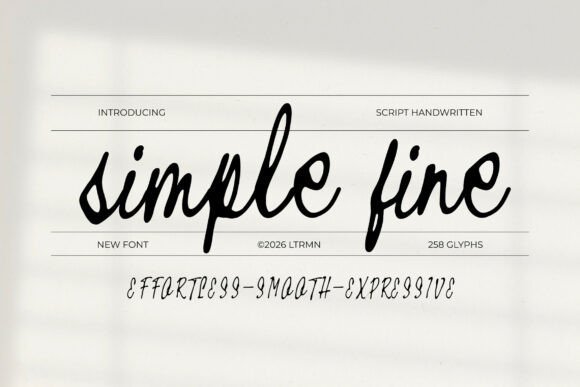
Simple Fine Font is a beautifully smooth handwritten font that captures the authentic essence of signature-style penmanship. With its elegant, flowing strokes and natural baseline, this cursive typeface adds a clean yet deeply personal touch to any creative endeavor. Whether you are aiming for a sophisticated boutique look or an approachable, modern aesthetic, the effortless movement and expressive curves of this natural script ensure your typography feels human, refined, and beautifully organic.
Beyond its visual appeal, Simple Fine is packed with powerful typographic features, including seamless ligatures, stunning alternate characters, and comprehensive multilingual support. Supplied in OTF, TTF, WOFF, and WOFF2 formats, it performs just as flawlessly in web environments as it does in high-resolution print. This makes it an exceptional handwritten font choice for high-end branding, bespoke logo design, elegant wedding invitations, and engaging social media visuals that demand an authentic, effortless vibe.
2. Handwritten Font Bundle
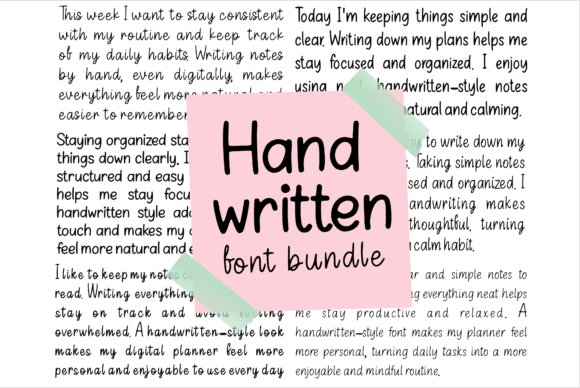
If you are looking to infuse your digital workspace with a warm, human touch, the Handwritten Font Bundle is an absolute must-have collection. Tailored specifically for digital journaling, planner creation, and mindful note-taking, this versatile toolkit perfectly mimics the cozy, authentic aesthetic of real pen on paper. Finding the perfect handwritten font can often be a challenge, but this bundle provides a highly curated selection of natural, highly legible scripts that transform clinical, rigid text into a highly personalized digital lettering experience.
Featuring everything from neat, structured print to flowing, casual cursive styles, this comprehensive typography pack covers every daily handwriting need. It is an ideal asset for crafting intimate digital planners, engaging habit trackers, or beautifully customized personal blogs. By integrating these unique handwritten font styles into your routine, you empower your digital notes and lifestyle designs with a beautifully organic, bespoke charm that feels genuinely and uniquely yours.
3. Farmhouse Font
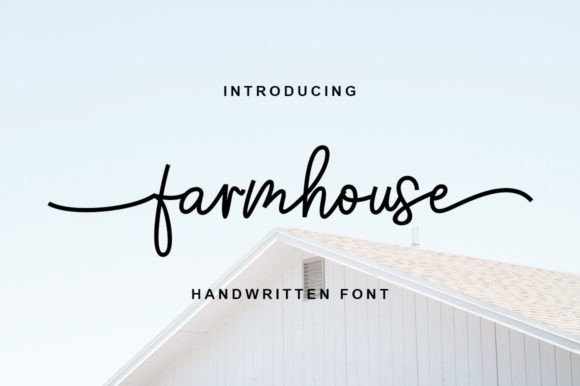
Farmhouse Font brings an authentic, rustic charm combined with a deeply romantic touch to your design toolkit. As a meticulously crafted handwritten font, it strikes a flawless balance between casual elegance and high-impact readability, making it a true standout for both prominent titles and flowing body text. Its natural letterforms simulate authentic calligraphy, allowing designers to elevate their creative concepts to new heights while maintaining a warm, accessible feel that resonates with audiences across various mediums.
Functionality meets beauty in this versatile typeface. Because it is fully PUA encoded, designers can effortlessly access a rich library of decorative glyphs and sweeping swashes without needing specialized design software. This flexibility makes Farmhouse an outstanding handwritten font for a wide array of applications, including chic magazine headlines, cohesive social media branding, breathtaking wedding invitations, and bespoke greeting cards. It delivers that coveted rustic-chic aesthetic with absolute professional precision.
4. Simple Free Font
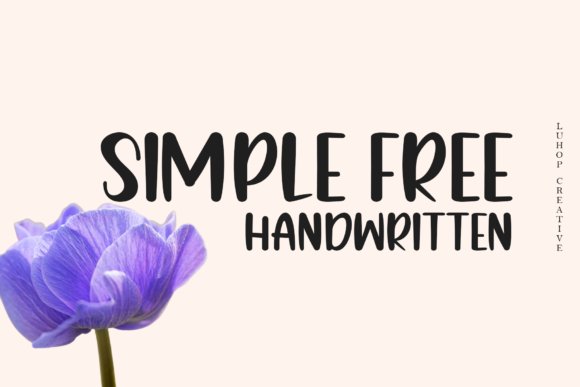
If you are searching for a truly versatile typographic element, the Simple Free Font stands out as an incredibly playful and casual handwritten font. With its fluid strokes and relaxed baseline, this hand-lettered gem captures the effortless charm of natural penmanship. It offers a gentle, organic aesthetic that instantly softens your layout, making it an ideal choice for projects that require a personal, approachable, and human touch.
Beyond its casual elegance, this script typeface brings a uniquely joyful and romantic energy to any creative endeavor. Whether you are designing intimate wedding invitations, boutique branding, or engaging social media graphics, integrating this handwritten font will effortlessly elevate your visual storytelling. Add this lovely typographic asset to your creative toolkit, and watch as it takes your everyday design projects to the next level with its warm, bespoke character.
5. January Font
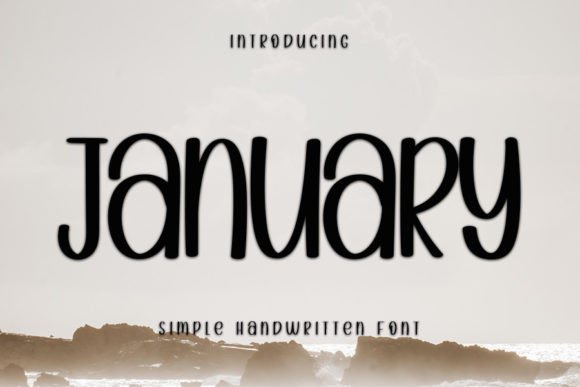
Embodying sophistication and grace, the January Font is a brilliantly neat and beautiful handwritten font defined by its distinctly elegant touch. Unlike overly expressive or erratic scripts, January maintains a crisp, legible baseline while preserving the authentic flow of genuine ink on paper. Its delicate curves and refined letterforms create a harmonious balance between classic calligraphy and modern cursive typography, making it an essential asset for designers aiming for a polished yet personal aesthetic.
What truly sets this handwritten font apart is its incredibly distinct and timeless style, which ensures your designs will remain relevant and captivating for years to come. It is absolutely perfect for high-end branding, editorial layouts, luxury packaging, and boutique logo designs. By incorporating January into your typographic hierarchy, you can effortlessly craft spectacular designs that resonate deeply with your audience and leave a lasting impression of elegant professionalism.
6. Handwritten Font Collection
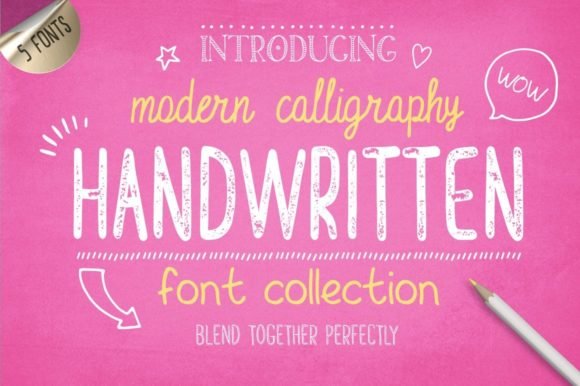
For creatives looking to build a comprehensive typographic arsenal, the Handwritten Font Collection offers an unparalleled treasure trove of design possibilities. This robust bundle features five distinct hand-drawn typefaces alongside five alternative styles, all meticulously crafted to blend together flawlessly. At its core is English Castles, a sleek and slim script that perfectly exemplifies a top-tier handwritten font, while the Windsor Great Park family adds a substantial, hand-drawn uppercase sans-serif contrast. From the whimsically cute Fish and Chips hand-lettering to the chalkboard-ready Worcestershire Sauce Press and the hollowed Cornish Pasty, this collection provides endless mix-and-match potential for any visual mood.
Beyond the impressive variety of each handwritten font, this package is engineered for ultimate creative flexibility across diverse applications like boutique branding, quirky t-shirt designs, charming greeting cards, and eye-catching posters. To sweeten the deal, the bundle includes an incredible bonus of 105 free hand-drawn elements specifically designed to complement these typefaces. Available in versatile formats, this collection is an all-in-one typographic toolkit guaranteed to bring a cohesive, artisanal touch to your next design project.
7. Sweater Font
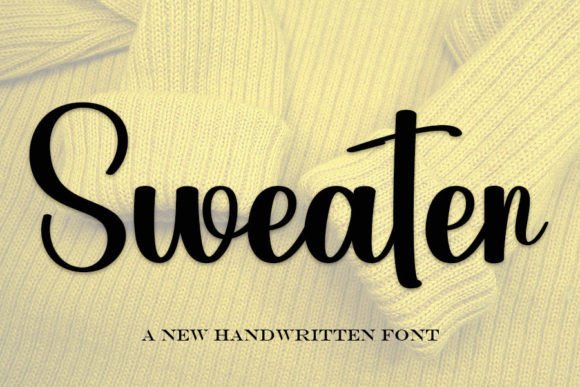
Sweater Font stands out as a remarkably neat and beautiful handwritten font, characterized by its undeniably elegant touch. When you are looking to infuse a sense of bespoke artistry into your favorite creative projects, this cursive typeface delivers a smooth, fluid baseline that mimics authentic penmanship. The precision in its letterforms elevates the standard for hand-lettered text, striking a perfect balance between sophisticated calligraphy and approachable modern design. Whether you are working on digital graphics or printed materials, its distinct characteristics ensure your typography feels both personal and highly professional.
Fall in love with the incredibly timeless style that this digital handwriting asset brings to the table. Sweater Font is exceptionally well-suited for high-end boutique branding, romantic wedding invitations, and luxury product packaging where a refined aesthetic is paramount. Because it captures the organic, flowing nature of a true handwritten font while maintaining excellent legibility, designers can confidently use it to create spectacular, eye-catching layouts. Embrace this versatile script to effortlessly elevate your next typographic endeavor into a lasting work of art.
8. Boho Font
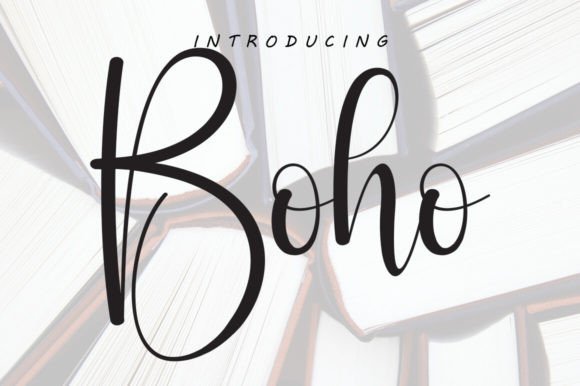
Introducing Boho Font, an enchantingly fluid handwritten font that effortlessly exudes a tender, artisanal charm. Designed to infuse a warm, romantic essence into your visual concepts, this typeface provides an expressively joyful touch to all your creative endeavors. Its flowing strokes and organic ligatures capture the true essence of human penmanship, making it a stellar choice for projects requiring an authentic, hand-lettered look. By bridging the gap between elegant script and relaxed, casual writing, Boho offers designers a highly adaptable tool for evoking genuine emotion through typography.
With its delightful cursive style, this handwritten font brings a beautiful versatility that dramatically enhances the allure of any layout. It shines exceptionally bright in bohemian-themed branding, lifestyle blog headers, greeting cards, and captivating social media quote graphics. Elevate your aesthetic to a new level of sophistication by incorporating these graceful characters into your mood boards and packaging designs. Celebrate the raw beauty of handwritten expression with the irresistible charm of Boho Font, and watch your creative visions come to life with a deeply personal resonance.
9. Sparkle Shine Font
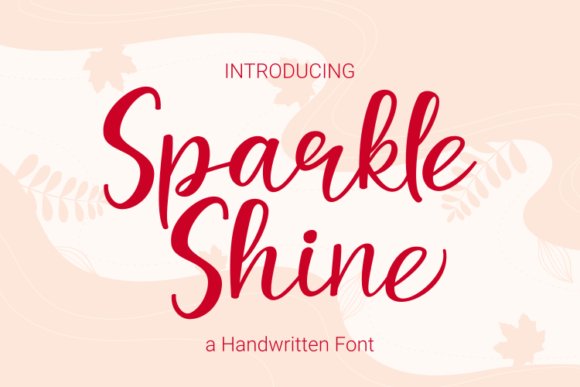
Sparkle Shine Font is a delightfully cute and simple handwritten font, specifically crafted to bring a playful energy to your typographic layouts. Renowned for its incredibly authentic look, this casual script adds a deeply personal and realistic feel to your creative designs, mimicking the joyful strokes of a marker or piece of chalk. It is an absolute powerhouse for educators and creators alike, serving as the perfect hand-drawn typography for whimsical chalkboard quotes, engaging teaching materials, and vibrant classroom posters. The organic, slightly bouncy baseline ensures that every word feels warm, approachable, and uniquely human.
Beyond its aesthetic appeal, this handwritten font is fully PUA encoded, meaning designers of all skill levels can access its full library of custom glyphs and decorative swashes with total ease. Add this lovely typographic gem to your creative toolkit and watch it breathe life into children’s book illustrations, quirky apparel designs, and playful DIY craft projects. By leveraging the expressive nature of digital handwriting, Sparkle Shine Font empowers you to take your graphic designs to the next level, ensuring your messaging resonates with a fun, handmade authenticity.
10. Child Font
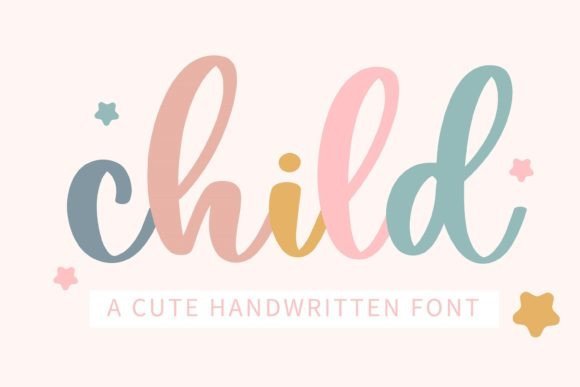
The Child Font is an exceptionally sweet and cute handwritten font that effortlessly captures the innocence and charm of authentic hand-drawn lettering. Its organic strokes and playful curves make it a highly sought-after typographic asset for designers looking to infuse their digital handwriting projects with genuine warmth. Unlike rigid digital typefaces, this cursive script maintains a fluid, natural rhythm that instantly makes any composition feel more personal and approachable, ensuring your audience connects deeply with your core message.
When it comes to practical application, the versatility of this charming script lettering truly shines. It is the perfect choice for crafting gorgeous wedding invitations, beautiful stationary art, and eye-catching social media posts that demand a bespoke, crafted aesthetic. Whether you are designing modern boutique branding, whimsical greeting cards, or engaging lifestyle blogs, incorporating this delightful handwritten font will effortlessly elevate your visual identity, lending a customized, artisanal touch to every project you create.
11. Sister Font
For designers seeking a delicate balance between elegance and approachability, the Sister Font emerges as a distinctly sweet and cursive handwritten font. This gentle typeface radiates a joyful and romantic energy, mimicking the fluid, sweeping motions of traditional calligraphy while retaining a relaxed, modern vibe. Its smooth, continuous strokes provide a refined yet unpretentious typographic foundation, making it a standout choice among digital handwriting options for those who want to convey authentic emotion and sophisticated charm in their visual communications.
The true strength of this elegant script lies in its remarkable adaptability across various creative mediums. It is perfectly fit for high-end branding, bespoke logo creation, and dreamy wedding suites, yet it feels equally at home in casual fashion lookbooks and dynamic marketing promotions. By integrating this versatile handwritten font into your creative workflow, you guarantee a finished product that looks both fancy and elegantly casual—an ideal combination for lifestyle brands, greeting card designers, and boutique businesses aiming to leave a memorable, personalized impression.
12. Candies Honeymoon Font
Candies Honeymoon Font stands out as a brilliantly executed handwritten font duo, meticulously crafted to capture the absolute magic of sweetness and typographic charm. By intelligently pairing a bold, candy-inspired display typeface with an elegantly flowing cursive script, this dual package offers a dynamic visual contrast that immediately catches the eye. The synergy between the two styles brings an abundance of warmth, joy, and unique personality to the digital canvas, proving that hand-drawn typography can be both incredibly playful and structurally sophisticated all at once.
This masterfully designed handwriting style is an ideal asset for premium branding, stylish event invitations, and beautifully curated social media aesthetics. It also shines exceptionally well in boutique packaging design, where the organic feel of a premium handwritten font helps products stand out on the shelf with a bespoke, artisanal flair. For graphic designers and art directors who want their creative work to feel deeply charming yet highly distinctive, Candies Honeymoon provides the ultimate toolkit to blend playful sophistication with undeniable modern appeal.
13. Biscuit Font
Biscuit is an exceptionally sweet and cursive handwritten font that effortlessly captures the warmth of personal, hand-crafted design. This gentle script typeface brings a beautifully authentic feel to your digital canvas, seamlessly blending modern elegance with an approachable, casual charm. If you are searching for a handwriting font that feels both joyful and inherently romantic, Biscuit offers graceful ligatures and fluid strokes that instantly elevate any creative project with its bespoke hand-lettering vibe.
As a highly versatile handwritten font, Biscuit shines across a multitude of design applications. It is perfectly suited for crafting bespoke branding materials, elegant wedding invitations, and heartfelt greeting cards. Beyond stationary, this charming cursive style works wonders for fashion lookbooks, boutique logo designs, and captivating marketing promotions. Whenever you need your typography to balance fancy sophistication with a relaxed, everyday aesthetic, this hand-drawn script guarantees a gorgeous, memorable finish.
14. Sunshine & Lemons Font
Bring a refreshing burst of creative energy to your digital workspace with the Sunshine & Lemons Font, a delightfully cute farmhouse handwritten font designed to make your projects pop. Specially crafted to emulate organic hand-lettering, this cursive font bridges the gap between rustic charm and modern digital versatility. Whether you are a dedicated Cricut enthusiast or a digital planner aficionado, this handwriting font injects a playful yet refined aesthetic into your typography toolkit, ensuring every word feels personally penned and warmly expressive.
Beyond its undeniable visual appeal, this handwritten font is engineered for ultimate compatibility and ease of use. It performs flawlessly across popular design platforms, integrating seamlessly with Cricut SVGs, Goodnotes, and Procreate. Transform ordinary text into stunning works of art by incorporating this versatile script into bespoke greeting cards, personalized craft projects, and vibrant event invitations. For anyone seeking a captivating script typeface that radiates joy and artisanal flair, Sunshine & Lemons stands out as an essential typographic choice.
15. Stay Wonderful Font
Elegance meets simplicity in the Stay Wonderful Font, a stunningly thin and beautiful handwritten font that brings a delicate, refined touch to your typography collection. Defined by its distinct, well-rounded letters and graceful, airy strokes, this handwriting font acts as a true typographic masterpiece. It captures the essence of sophisticated hand-lettering, offering a clean, minimalist cursive style that instantly draws the eye without overwhelming the surrounding design elements.
The incredibly versatile style of this handwritten font allows it to adapt beautifully to a wide array of high-end design contexts. It is an ideal script typeface for minimalist logo creation, delicate editorial layouts, boutique packaging, and elegant social media graphics. By integrating this fluid handwriting font into your workflow, you can effortlessly create spectacular, professional-grade designs that maintain a warm, personalized, and authentically human connection.
16. Penny Scribbles Font
If you are looking to infuse your next project with a whimsical, authentic charm, the Penny Scribbles Font is an exceptional handwritten font family to add to your typographic toolkit. Characterized by playful, slightly messy strokes that mimic the effortless spontaneity of a child’s handwriting, this hand-lettered typeface still manages to retain a crisp, modern edge. It captures the essence of a natural stroke, making it an ideal choice for designers who want to step away from rigid corporate typography and embrace a more approachable, organic aesthetic.
Beyond its delightful letterforms, this casual script typeface is incredibly versatile for real-world applications. It is absolutely perfect for breathing life into projects with a childlike vibe, whether you are designing artisanal food menus, crafting custom recipe cards, or illustrating children’s books. As an added bonus, this download includes 50 unique, doodle-style illustrations in both SVG and PNG formats. These complementary graphics seamlessly pair with the handwritten font, allowing you to build highly engaging, cohesive branding without ever having to leave your canvas.
17. Neat & Clean Handwritten Font Bundle V.1
The Neat & Clean Handwritten Font Bundle V.1 is a powerhouse collection for designers and digital creators who crave that perfectly tidy, hand-lettered aesthetic. This comprehensive typographic toolkit features 10 distinctly unique and playful handwritten fonts, each meticulously designed to bring a polished yet approachable charm to your digital workspace. Whether you are formatting elegant digital planners in GoodNotes, crafting engaging social media graphics in Canva, or sketching out fresh typographic concepts in Procreate, these cursive typefaces offer the authentic feel of a pen-to-paper natural stroke without the inconsistency of actual handwriting.
This beautifully curated bundle truly shines when applied to educational and lifestyle projects. Its highly legible characters make it an absolute must-have for back-to-school materials, digital journaling, and aesthetically pleasing note-taking. Furthermore, the seamless blend of neat, clean, and mildly whimsical script designs ensures these typefaces transition effortlessly into professional branding, logo creation, and kid-centric product packaging. Elevate your creative arsenal with this highly versatile handwritten font collection that delivers limitless typographic possibilities for both personal hobbies and high-end client work.
18. Special Free Font
Injecting a dose of personality into your designs is effortless with the Special Free Font, a wonderfully quirky and undeniably fun handwritten font. Boasting peculiarly attractive characters that dance playfully along the baseline, this typeface captures the beautiful imperfections of a genuine natural stroke. It stands out in the crowded world of digital typography by offering an organic, hand-lettered aesthetic that immediately draws the viewer’s eye. The authentic, fluid curves ensure that any text it formats feels highly personal and distinctively human.
Because of its highly stylized yet incredibly legible nature, this versatile cursive script is a fantastic asset for a wide variety of creative endeavors. It serves as an excellent foundational typeface for eye-catching social media quote graphics, bespoke event invitations, and casual boutique branding. When you need a handwritten font that effortlessly elevates the visual appeal of a poster or merchandise design, Special Free delivers that bespoke, artisanal touch that transforms a simple layout into a beautiful, memorable creation.
19. Ladybug Font
Ladybug is a remarkably sweet and cursive handwritten font that effortlessly captures the charm of natural handwriting. Its gentle, sweeping strokes are guaranteed to look absolutely gorgeous across a wide variety of design ideas, bringing a joyful and inherently romantic touch to each of your creative projects. Whether you are aiming for a classic calligraphy style or something a bit more playful, this hand-lettered typeface provides an organic warmth that standard digital lettering often lacks.
Perfectly tailored for modern branding, bespoke logos, and elegant wedding stationery, the Ladybug font is a versatile asset in any designer’s toolkit. It shines brilliantly when used for heartfelt greeting cards, high-end fashion lookbooks, and engaging marketing promotions. Whenever you need your design to exude a fancy and sophisticated vibe while still maintaining a relatable, casual aesthetic, this authentic handwritten font delivers unparalleled elegance.
20. Joynoted Font
Created by the talented team at Allouse Studio, Joynoted is a premium handwritten font designed to instantly elevate your product branding with its elegant and notably modern lines. This typeface was meticulously crafted specifically for designers who need to inject a beautiful, refreshing look into their creative workflows. By blending the fluid motion of a cursive script with contemporary design sensibilities, Joynoted offers a highly legible yet entirely organic lettering style that naturally draws the eye.
Integrating this authentic handwritten font into your digital or print projects guarantees a sophisticated finish that feels deeply personal and bespoke. It is an exceptional choice for boutique product packaging, captivating social media graphics, and minimalist logo designs where a natural handwriting aesthetic is desired. If you are searching for a hand-lettered typeface that balances crisp modernism with human warmth, Joynoted is an indispensable typographic tool.
21. Welcome Font
Welcome is a beautifully sweet and distinctly cursive handwritten font designed to infuse your creative endeavors with an undeniable sense of warmth and intimacy. Characterized by its gentle curves and authentic strokes, this inviting typeface looks stunning across an impressive spectrum of design contexts. It is masterfully engineered to add a joyful and romantic flair to your artwork, perfectly mimicking the fluid grace of natural human penmanship without sacrificing professional legibility.
This versatile hand-lettered typeface is an ideal fit for crafting memorable branding elements, boutique logos, and enchanting wedding invitation suites. Furthermore, the Welcome font excels in editorial applications such as fashion lookbooks, custom greeting cards, and dynamic marketing promotions. Anytime your project calls for a typographic style that is effortlessly fancy and elegant, yet retains a welcoming, casual charm, this exceptional handwritten font is sure to exceed your expectations.
22. Handwriting Font
The Handwriting Font is a delightfully sweet and cursive handwritten font that instantly elevates any creative project with its authentic penmanship. Designed to mimic the natural flow of human handwriting, this gentle typeface brings a distinctively joyful and romantic touch to your digital canvas. Whether you are working on a minimalist aesthetic or a highly decorative layout, its organic strokes and fluid letterforms provide that coveted hand-lettered style, ensuring your text feels personal, inviting, and effortlessly chic.
Beyond its undeniable charm, this versatile typeface is perfectly suited for a wide array of professional and personal applications. It is an exceptional choice for boutique branding, bespoke logo design, and elegant wedding stationery. Furthermore, it shines brilliantly in fashion lookbooks, greeting cards, and seasonal marketing promotions. Anytime your design requires a balance between fancy sophistication and a laid-back, casual vibe, this handwritten font delivers a beautifully crafted solution that resonates deeply with your audience.
23. History Font
History Font emerges as a stunningly sweet and cursive handwritten font, meticulously designed to infuse your creative endeavors with a sense of timeless romance and gentle fluidity. This captivating typeface captures the essence of personalized typography, utilizing graceful loops and natural baseline variations to create an incredibly authentic hand-lettered aesthetic. The true beauty of this flowing script lies in its ability to transform standard text into a piece of digital calligraphy, making every word look as though it was thoughtfully crafted by a skilled artisan’s pen.
Functionality seamlessly meets sheer elegance with this versatile handwritten font, making it an absolute staple for modern design professionals. It is flawlessly tailored for high-end boutique branding, elegant logo marks, and enchanting wedding invitations. Additionally, its joyful yet sophisticated character translates beautifully across fashion lookbooks, personalized greeting cards, and engaging social media marketing promotions. Whenever your project calls for a delicate balance between fancy, upscale typography and an approachable, casual warmth, the History Font stands ready to deliver exceptional visual results.
24. Have a Nice Day Honey Font
The Have a Nice Day Honey Font is an impeccably crafted handwritten font duo that brings a breath of fresh air to modern typographic pairing. This charming combination masterfully pairs a tall, bold, and playful display typeface with a delicate, narrow handwritten companion. The primary Honey font commands attention with its quirky proportions, softly rounded edges, and a deeply organic, hand-drawn feel that radiates cheerful modernity. In beautiful contrast, the secondary typeface adds a light, airy touch of authentic penmanship, creating a dynamic visual interplay that is both warm and incredibly friendly.
What sets this handwritten font duo apart is its remarkable ability to strike a perfect harmony between bold personality and subtle, handcrafted elegance. It serves as the ultimate typographic toolkit for designers looking to infuse their work with an approachable, artisan touch. Whether you are developing cohesive boutique branding, designing eye-catching posters, or crafting engaging social media graphics and greeting cards, this pairing is exceptionally versatile. Any design that aims to feel welcoming, distinctly upbeat, and rich with human connection will benefit immensely from this delightful typeface combination.
25. Amor Note Font
Amor Note Font is a cool, friendly, and informal handwritten font that brings a deeply personal and realistic touch to any creative project. Emulating the effortless flow of casual handwriting, this script typeface is beautifully suited for crafting charming chalkboard quotes, engaging educational materials, and playful classroom displays. Its authentic, hand-drawn look instantly breaks down the barrier between designer and audience, radiating a warmth that feels genuinely human rather than digitally produced.
Beyond its endearing aesthetic, this hand-lettered gem is incredibly user-friendly for both professional designers and hobbyists alike. Amor Note is fully PUA encoded, ensuring that you can seamlessly access its expansive library of custom glyphs and graceful ligatures across various design platforms. Whether you are personalizing greeting cards, designing rustic wedding invitations, or conceptualizing a bespoke branding package, this versatile cursive font provides the perfect blend of legibility and artisan charm.
26. Ayshana Script Font
Ayshana Script Font stands out as a remarkably lovely and timeless handwritten font, perfectly capturing the delicate elegance of traditional calligraphy. With its fluid, sweeping curves and sophisticated letterforms, this signature-style typeface is the ultimate choice for conceptualizing eye-catching logos, high-end branding materials, and romantic quote graphics. The natural rhythm of its cursive typography creates a bespoke, artisan feel, making it an indispensable asset for designers looking to inject a touch of luxury and refinement into their visual storytelling.
On the technical side, Ayshana Script provides absolute creative freedom thanks to its full PUA encoding. This ensures that every stunning alternate glyph, flourishing swash, and decorative ligature is readily accessible, even for those using standard word processors or craft software. Adding this expressive hand-lettered font to your typographic arsenal will effortlessly elevate your next set of wedding invitations, boutique packaging, or social media campaigns, allowing you to craft truly memorable, custom-looking designs.
27. Scribblemood Regular Font
Scribblemood Regular Font is an exceptionally quirky handwritten font that draws its inspiration from playful doodles, spontaneous journaling, and wonderfully messy pen sketches. Boasting an impressive collection of 486 glyphs, this hand-drawn lettering masterpiece is meticulously designed to inject life, humor, and a warm, organic script flow into your projects. What sets it apart is its incredibly smart contextual alternates, which automatically style the last letter of each word to flawlessly mimic the imperfect, authentic rhythm of real human handwriting. Combined with its stylistic ligatures, it creates a delightfully funky and unpredictable typography experience.
Beyond its primary letterforms, this dynamic cursive font is packed with creative extras, including childlike food icons, romantic elements, banners, and even decorative Roman numerals. Fully PUA encoded, every single feature is easily accessible across any design software, from Canva to Cricut Design Space. It is the perfect typographic companion for a wide variety of creative endeavors, including playful wedding signage, DIY craft projects, engaging children’s book illustrations, and boutique packaging. If you are a typography lover who favors an energetic, imperfect aesthetic over rigid perfection, Scribblemood will quickly become your go-to creative tool.
28. Youth Richfield Font
Youth Richfield by Allouse Studio is a masterclass in combining clean legibility with authentic brush typography. As a meticulously crafted handwritten font, it strikes the perfect balance between organic fluidity and polished design. The subtle brush textures give each letterform a dynamic energy, making it feel as though the text was just painted onto the canvas. Whether you are aiming for a modern aesthetic or a timeless artisanal vibe, this hand-drawn script provides an unparalleled level of warmth and character to your typography arsenal.
When it comes to practical application, this versatile typeface truly shines in projects that require a personalized, intimate touch. It looks absolutely stunning on wedding invitations, bespoke thank you cards, and boutique branding materials. Graphic designers frequently leverage this handwritten font for eye-catching quotes, custom logo designs, and memorable business cards. If you want to elevate your marketing collateral with authentic, expressive lettering that connects with audiences on a human level, Youth Richfield is an indispensable addition to your toolkit.
29. Background Signature Font
Background Signature is an exceptionally beautiful handwritten font that captures the spontaneous, flowing style of authentic penmanship. Evoking the charm of elegant cursive writing, this typeface flows effortlessly across the page with sweeping ascenders and delicate descenders. The natural rhythm of the letterforms creates a sense of movement and grace, making it an ideal choice for creatives seeking a signature script that feels both sophisticated and genuinely personal. The organic stroke variations mimic real ink on paper, delivering a high-end, custom typography feel.
Perfectly suited for a wide array of digital and print mediums, this flowing handwritten font adds an immediate touch of stylish intimacy to any project. It is highly recommended for upscale event invitations, luxury brand logos, and engaging social media posts that demand a relatable yet refined aesthetic. By integrating this cursive script into your design workflow, you can effortlessly transform standard text into a captivating visual statement that resonates with elegance, exclusivity, and undeniable charm.
30. Writing Font
Aptly named, the Writing Font is a sweet and delicate handwritten font that brings a gentle, romantic charm to any creative endeavor. This lovely cursive typeface stands out with its smooth, unbroken lines and joyful curves, offering a welcoming and approachable vibe. The thoughtful design ensures that while the letters maintain a casual, free-flowing aesthetic, they remain highly legible and beautifully structured. It is an exemplary choice for designers looking to infuse their work with a tender, hand-crafted typographic style that speaks directly to the heart.
The versatility of this elegant handwritten font makes it an absolute favorite for a multitude of high-end design ideas. It is perfectly fit for boutique branding, bespoke logo creation, and romantic wedding stationery, including save-the-dates and menus. Furthermore, fashion lookbooks, marketing promotions, and personalized greeting cards instantly benefit from its fancy yet relaxed demeanor. Whenever your project calls for a touch of whimsy combined with effortless sophistication, this cursive script delivers a flawless, memorable finish.
31. Ashley Southine Font
Ashley Southine is an exquisitely crafted handwritten font that effortlessly imparts an elegant, highly personal touch to your typography. Drawing deep inspiration from authentic handcrafted strokes, this beautiful script presents a natural, organic flow that is simultaneously warm and inviting. Every single character has been thoughtfully designed to showcase the unique charm found in real penmanship, creating a relaxed yet highly refined atmosphere on the page. Whether you are aiming for a chic signature aesthetic or a delicate cursive look, this handwritten font bridges the gap between digital perfection and human warmth.
When it comes to real-world applications, Ashley Southine shines in projects that require a sophisticated and personal connection. It is absolutely ideal for designing romantic wedding invitations, bespoke greeting cards, and artisan brand logos that need to communicate authenticity. By integrating this handcrafted lettering into your workflow, you instantly elevate your visuals with a bespoke charm. For designers seeking to infuse their creative assets with a genuinely human touch, this elegant handwriting typeface stands out as an indispensable addition to your typographic toolkit.
32. Farmhouse Pumpkin Font
Farmhouse Pumpkin is a delightfully cute and visually engaging handwritten font duo that perfectly pairs a playful sans-serif with a sweeping, expressive script. Bursting with casual charm and a genuinely fun personality, this dynamic typography pairing captures the nostalgic, rustic essence of hand-lettered designs. Because it provides both a structured sans and a free-flowing cursive, designers have the ultimate flexibility to create balanced, eye-catching layouts without the hassle of searching for complementary typefaces. This versatile handwritten font brings an instant sense of warmth and approachability to any creative canvas.
This lovely hand-drawn collection is specifically tailored for seasonal projects, making it a dream for cozy autumn designs, harvest festival flyers, and boutique product packaging. Imagine using the flowing script for a catchy headline while relying on the clean sans-serif for readable supporting text on custom apparel or rustic farmhouse home decor. Whether you are creating social media graphics or seasonal greeting cards, this charming handwritten font duo ensures your messaging feels personal, organic, and beautifully cohesive.
33. Cerrybelle Font
Cerrybelle is a beautifully sweet and refreshingly simple handwritten font that brings a sense of effortless grace to your digital workspace. Defined by its natural baseline and uniquely organic curves, this versatile typeface mimics the authentic rhythm of fluid handwriting. Unlike overly ornate calligraphy, Cerrybelle strikes the perfect balance between legibility and decorative flair, making it an incredibly reliable choice for a massive pool of design styles. The inherent charm of this handwritten font lies in its ability to look completely unforced, offering an authentic, hand-drawn aesthetic that resonates with modern audiences.
Because of its approachable and adaptable nature, the only true limit to Cerrybelle is your own imagination. It performs wonderfully across a diverse array of mediums, from uplifting social media quotes and whimsical blog headers to charming boutique logos and personalized stationery. Its delicate, hand-lettered vibe pairs seamlessly with watercolor graphics and minimalist layouts alike. If you want to convey sincerity and a warm, artisanal feel in your next creative endeavor, integrating this lovely handwritten font is a surefire way to make your design truly unforgettable.
34. Something Font
Something Font is a delightfully cute and beautifully relaxed handwritten font that instantly breathes a sense of casual authenticity into your digital canvas. If you have been searching for a versatile script typeface that mirrors the effortless charm of pen-and-paper writing, this design hits all the right notes. Its organic baseline and smooth, unpretentious letterforms make it a standout choice for designers who want their typography to feel welcoming, warm, and distinctly human.
Whether you are designing heartfelt letters, personalized greeting cards, or informal event invitations, this casual hand-lettered typeface adapts flawlessly to your creative vision. It acts as the perfect typographic companion for lifestyle blogs, social media quotes, and boutique branding. Confidently incorporate this beautiful handwritten font into your fresh creations, and you will undoubtedly love the organic, relaxed results it delivers.
35. Modern Hand Flow Font
Modern Hand Flow Font is a remarkably smooth and contemporary handwritten font carefully crafted to capture the natural rhythm of relaxed, everyday penmanship. Unlike overly decorative script typefaces that can sacrifice legibility, this beautiful hand-lettered design maintains a clean, balanced, and modern appearance. Its medium-weight strokes and gently flowing curves create a profound sense of authenticity, giving your designs a highly personal and approachable feel while remaining exceptionally readable for both eye-catching headlines and short text blocks.
This versatile calligraphy style is the ultimate tool for branding projects, elegant logo design, and engaging social media graphics where a distinct human touch is required. From stylish product packaging to bespoke wedding invitations and digital quote cards, the natural letter connections form consistent spacing that elevates any layout. By integrating this modern handwritten font into your workflow, you ensure that your message always feels warm, expressive, and professionally engaging.
36. Milkshake Font
Milkshake Font emerges as a wonderfully tall and playful handwritten font infused with a casual, heartfelt energy that immediately captures the viewer’s attention. Characterized by its slim, elongated letterforms, this unique script typeface effortlessly delivers a distinct sense of warmth, personality, and whimsical charm. It brilliantly bridges the gap between a clean, modern hand-lettered style and a joyful, hand-drawn aesthetic, ensuring that your typography feels both accessible and emotionally resonant.
Ideal for personal and emotion-driven creative projects, this captivating handwriting font shines in a multitude of design environments. It is the perfect typographic choice for crafting memorable Father’s Day designs, bespoke greeting cards, custom apparel, and eye-catching poster layouts. Whenever your project calls for a touch of genuine human connection and a charismatic vibe, this beautiful handwritten font stands ready to transform your canvas with its playful spirit and effortless readability.
37. Harlysta Font
Harlysta is a cute and friendly handwritten font that effortlessly captures the authentic warmth of manual penmanship. Unlike more rigid typefaces, its casual charm makes it appear wonderfully down-to-earth and incredibly approachable, giving your digital lettering a truly personalized feel. The fluid strokes and balanced spacing ensure high readability, making it an essential addition to any designer’s toolkit who specializes in hand-drawn typography.
Because of its highly versatile nature, this script font is perfect for a multitude of creative applications. Whether you are designing inviting social media graphics, charming product packaging, or casual lifestyle blogs, Harlysta seamlessly adapts to your needs. Its authentic handwritten font aesthetic easily elevates everyday projects, bringing a welcoming and organic touch to logos, quotes, and custom stationery designs.
38. Disney Font
Disney is a sweet and cursive handwritten font that immediately evokes a sense of nostalgia and whimsical romance. This gentle typeface will look absolutely gorgeous across a wide variety of design concepts, adding a joyful, elegant touch to each of your projects. By mimicking natural, flowing handwriting, it strikes the perfect balance between fancy sophistication and casual approachability, bringing a handcrafted elegance to your creative workflow.
This beautifully crafted script is perfectly fit for high-end branding, bespoke logo design, and delicate wedding invitations where a custom handwritten font truly shines. It is equally at home in modern lookbooks, fashion marketing promotions, and greeting cards. Whenever you need your design to look polished yet retain that authentic, hand-lettered vibe, the Disney font offers the ideal mix of refined cursive style and contemporary charm.
39. Sunflower Font
Sunflower is a cute handwritten font that has been carefully handcrafted to become a true staple in your typography collection. It brilliantly maintains its classy calligraphic influences while still feeling incredibly contemporary, fresh, and relevant for modern design. The organic flow of its letters perfectly mimics traditional cursive writing, capturing the essence of hand-drawn typography without sacrificing digital legibility.
This remarkable versatility ensures that Sunflower will appeal to a wide range of crafty design ideas and professional layouts alike. From creating striking letterheads and eye-catching blog titles to designing custom boutique stationery, this elegant handwritten font adds an immediate burst of personality. Whether used for feminine branding, lifestyle magazines, or artisanal packaging, it delivers a uniquely personalized aesthetic that resonates with audiences.
40. Smithson Font
Smithson is an exquisite handwritten font that masterfully bridges the gap between classic elegance and modern design. It carries deep calligraphic influences, offering graceful strokes and sweeping curves that instantly elevate any creative project. Despite its traditional roots, this cursive lettering style maintains a remarkably contemporary and fresh feel, making it a versatile choice for designers looking to add a personal, hand-drawn touch to their work. Whether you are crafting delicate wedding invitations or sophisticated boutique branding, this script typeface stands out as a true favorite among professionals.
Beyond its striking visual appeal, the Smithson Font is designed with exceptional functionality in mind. It is fully PUA encoded, meaning designers can effortlessly access a rich library of alternate glyphs and decorative swashes without needing specialized design software. This technical accessibility allows you to customize your hand-lettered designs down to the finest detail. From stunning logo designs to eye-catching social media graphics, this beautiful handwritten typography provides the perfect blend of aesthetic charm and practical usability.
41. Handmade Font
True to its name, the Handmade Font is a remarkably sweet and cursive handwritten font that radiates warmth and authenticity. With its gentle, flowing strokes, this hand-lettered typeface looks gorgeous across a wide variety of design concepts, seamlessly infusing a joyful and romantic touch into your artwork. The organic handwriting style captures the charming imperfections and fluid motion of actual penmanship, making it an ideal choice for projects that require a personal, intimate connection with the audience.
This elegant yet casual script font is an absolute powerhouse for a multitude of creative applications. It is perfectly tailored for high-end branding, bespoke logo design, and delicate wedding stationery, as well as fashion lookbooks and impactful marketing promotions. Whenever you need your design to exude a fancy, sophisticated vibe without feeling overly stiff or formal, this beautiful handwritten typography strikes the perfect balance. It effortlessly transforms everyday greeting cards and editorial layouts into stunning pieces of visual art.
42. Christmas Font
The Christmas Font is a wonderfully fun and casual handwritten font that instantly brings a sense of playful joy to any creative endeavor. Designed to mimic relaxed, everyday penmanship, this delightful informal script is characterized by its bouncy baseline and approachable letterforms. Whether you are aiming for a festive holiday aesthetic or just looking to inject some cheerful personality into your work year-round, this hand-drawn lettering style delivers a charming, authentic vibe that resonates with audiences of all ages.
Highly adaptable and incredibly easy to read, this casual handwritten typography is a fantastic asset for a wide array of crafting and digital design projects. It is an exceptional choice for creating unique apparel, such as custom t-shirt designs and adorable baby onesies, as well as crafting charming nursery decorations and whimsical greeting cards. From personalized digital invitations to engaging social media graphics, this versatile hand-lettered typeface ensures your creations feel approachable, creative, and distinctively yours.
43. Dexotick Font
Dexotick is a wonderfully creative and cursive handwritten font crafted by designer Maulizari Dhan. Boasting remarkably unique yet perfectly balanced characters, this typeface effortlessly captures the authentic charm of natural digital handwriting. Its fluid strokes and playful energy make it a highly versatile choice for designers looking to infuse a genuine, human touch into their typography. Whether you are aiming for a casual aesthetic or something more vibrant, this handwritten script seamlessly adapts to a wide pool of design contexts.
When it comes to practical application, Dexotick truly excels at making your most creative ideas come alive. We highly recommend utilizing this hand-lettered gem for boutique branding, personalized greeting cards, engaging social media campaigns, and custom packaging. By integrating this dynamic cursive typeface into your workflow, you can easily achieve that bespoke, custom-crafted feel that modern audiences deeply resonate with.
44. Santa Catalina Font
Santa Catalina is a breathtakingly beautiful handwritten font that brings an air of timeless elegance to any digital canvas. Characterized by its flowing, signature-style strokes and distinct letterforms, this typeface perfectly mimics the sophisticated look of premium hand-drawn typography. A standout feature for professional designers is that Santa Catalina is fully PUA encoded; this means you can effortlessly access a rich library of decorative glyphs and sweeping swashes without needing specialized design software. It is a seamless blend of aesthetic charm and technical accessibility.
Because of its incredibly distinct and romantic style, this handwritten script is an absolute dream for high-end project applications. It serves as an ideal typographic foundation for crafting luxurious logos, delicate wedding stationery, and elegant photography watermarks. Additionally, its legibility and modern flair make it a fantastic choice for lifestyle blogs, contemporary website headers, and boutique product packaging. If you want to create spectacular designs that exude a personalized, artisanal warmth, Santa Catalina is a top-tier contender.
45. Reflect Handwritten Font
Capture the raw, unbridled energy of a hand-painted signature with Reflect, a strikingly modern handwritten font designed by Sunnytudu. Featuring fast, sweeping strokes and sharp, tapering terminals, this typeface exudes an undeniable sense of motion and urban sophistication. The slightly slanted rhythm combined with a textured dry brush aesthetic gives Reflect a remarkably authentic feel, closely mimicking the dynamic imperfections of real-world custom hand lettering. It is an exceptional choice for creators who want to break away from rigid, traditional typography and embrace a more visceral, expressive style.
In practice, Reflect proves to be a powerful tool for brands aiming to communicate edge, confidence, and a deeply personal, human touch. Its high-energy appearance makes it a standout option for streetwear branding, bold photography watermarks, and gripping cinematic titles. Furthermore, this dynamic handwritten script thrives in high-octane sports marketing materials, music posters, and edgy editorial layouts. Whenever your project demands typography that speaks with volume and raw attitude, Reflect delivers spectacular, attention-grabbing results.
I hope this roundup of beautiful script and calligraphy typefaces helps you narrow down your choices for your upcoming design work. Finding the right cursive typography takes a bit of patience, but the payoff of a gorgeous, custom-looking design is always worth the effort. Be sure to bookmark this list so you always have a solid rotation of hand-lettered styles ready to go!